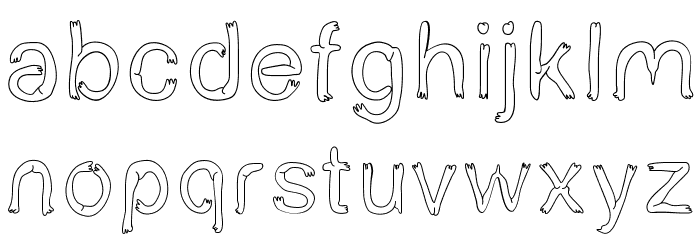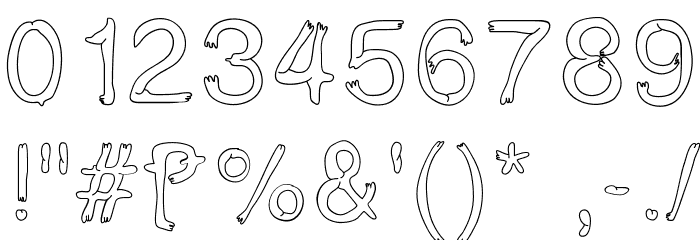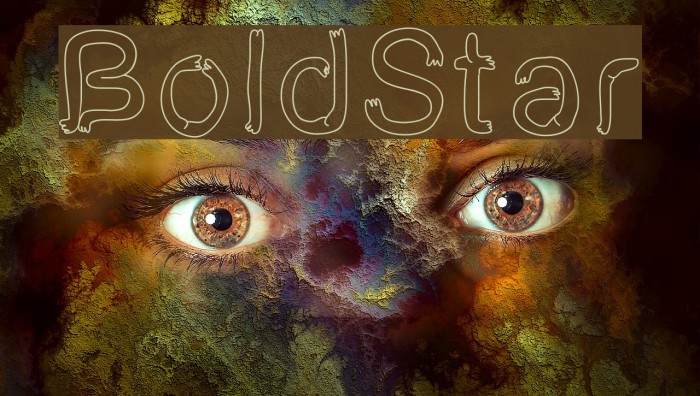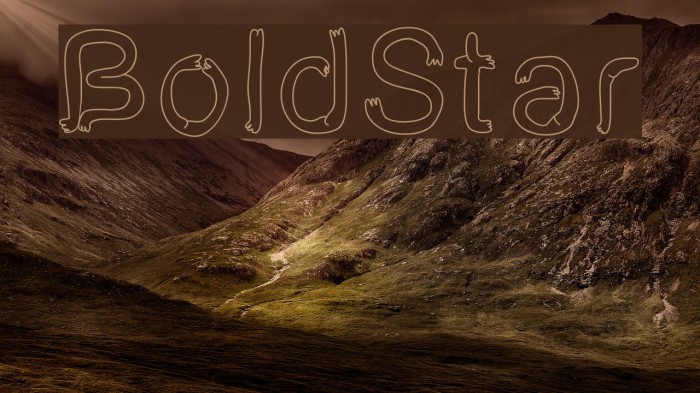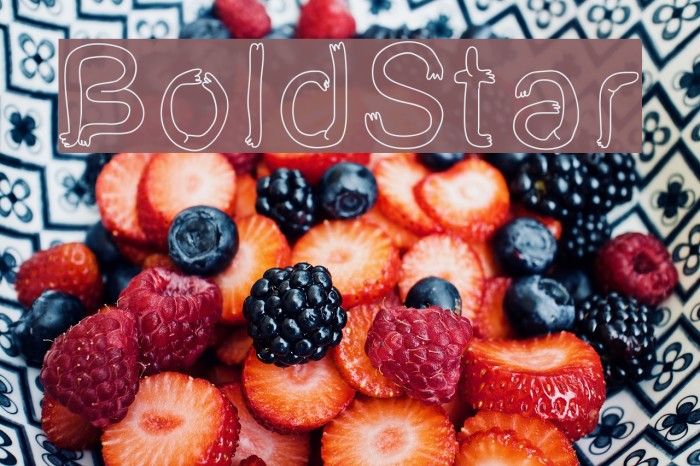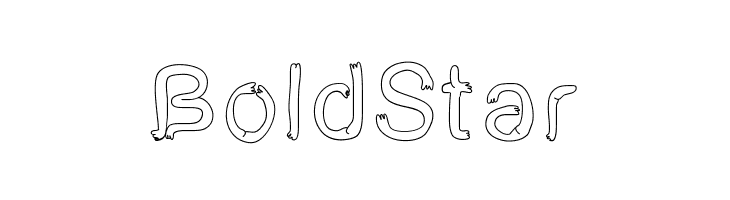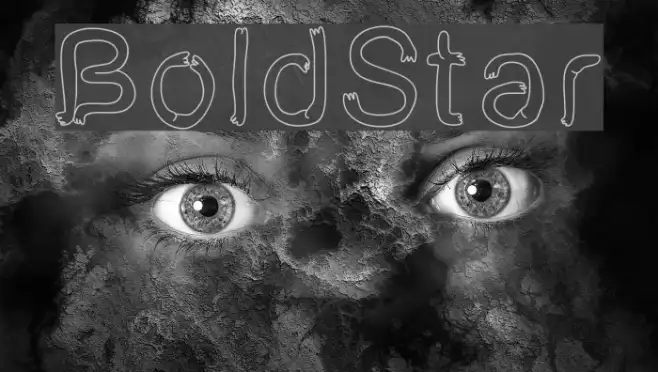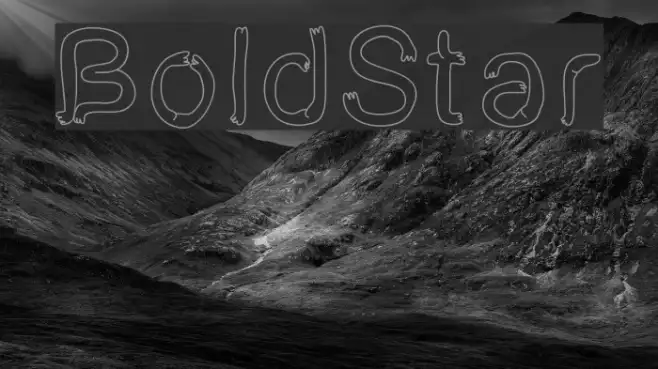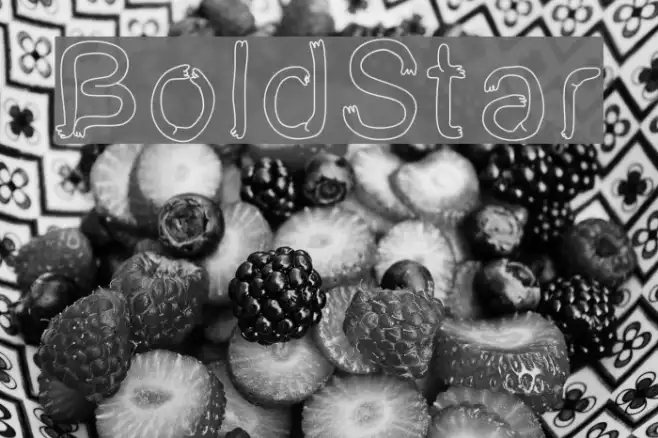
BoldStar Font
This font features a playful and whimsical design, characterized by its unique hand-drawn style. Each letter and number is outlined with a bold, uneven stroke, giving it a lively and dynamic appearance. The characters have a slightly irregular shape, adding to the font's charm and personality. The uppercase and lowercase letters maintain a consistent style, with rounded edges and a casual feel. The numerals and special characters follow the same design principles, ensuring a cohesive look across all elements. This font's distinctive style makes it ideal for creative and informal projects, where a touch of fun and individuality is desired.
A playful, hand-drawn font with bold, uneven outlines and a whimsical style.
- Proposed Projects: Ideal for children's books, greeting cards, playful branding, and creative posters.
- Overall Style: Whimsical, Playful
- Use Case: Headlines, Logos, Creative projects